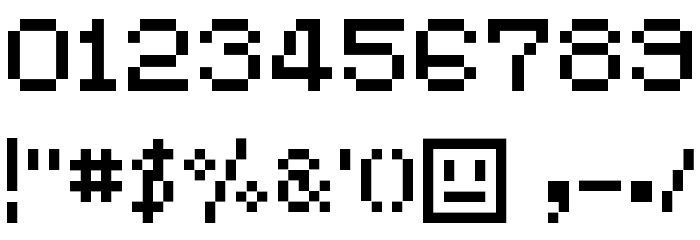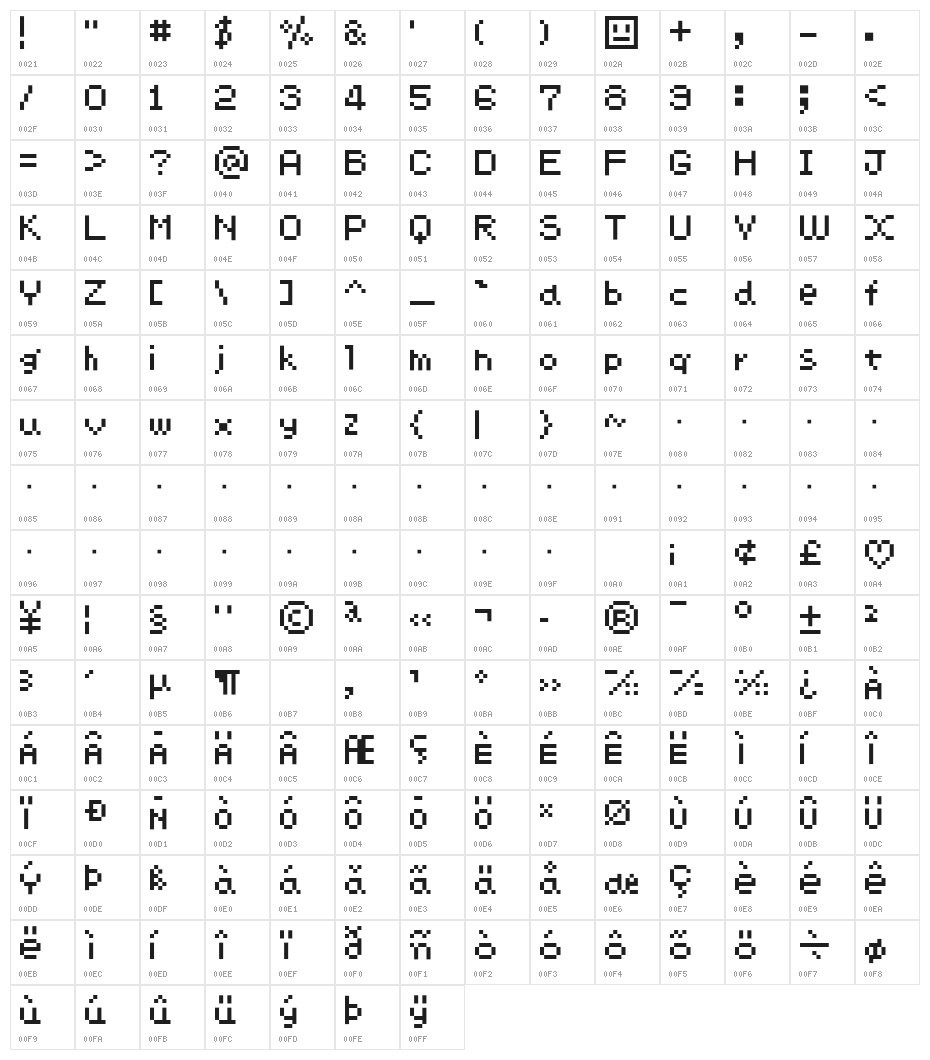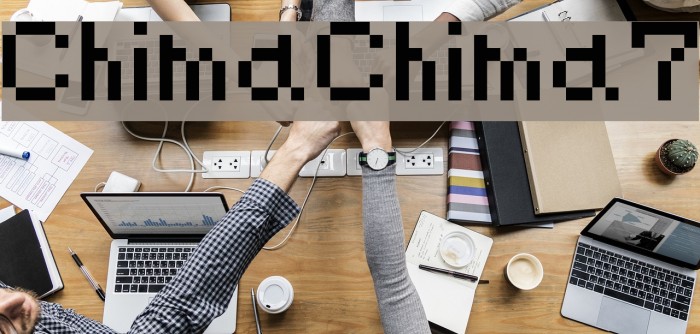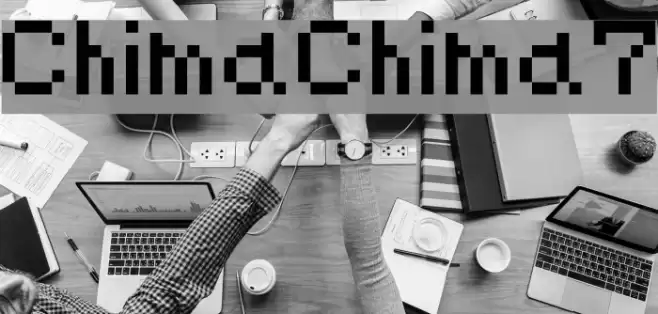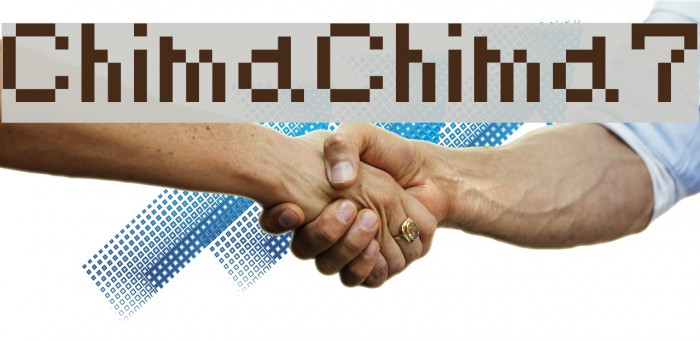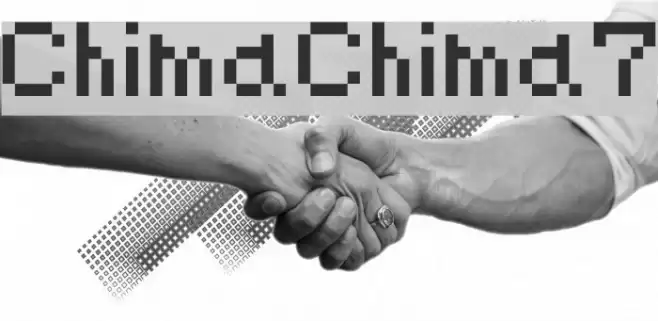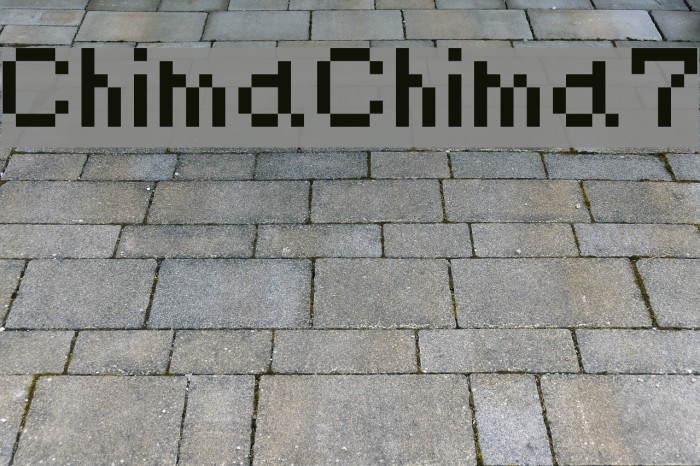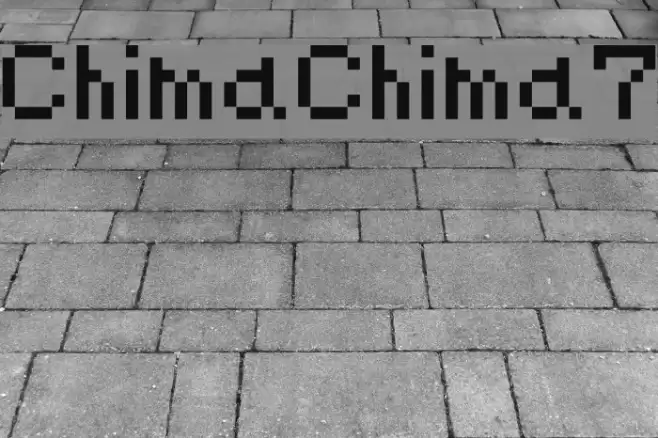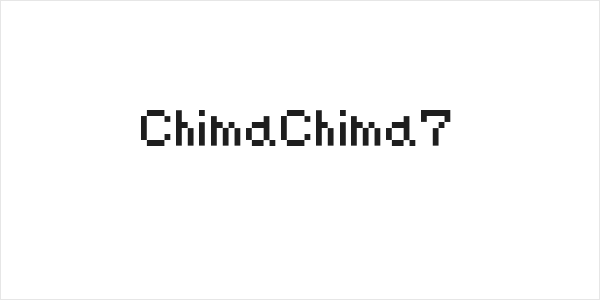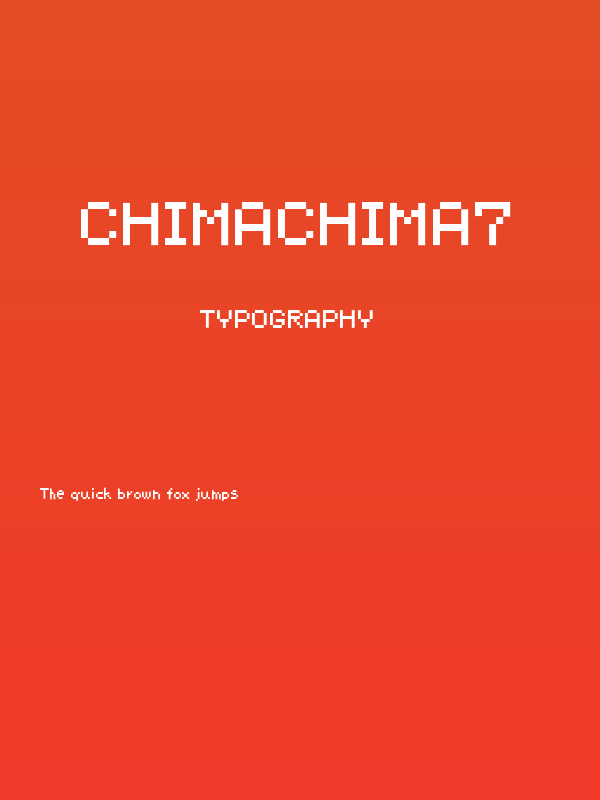
ChimaChima7 Font
ChimaChima7 Description
This font features a pixelated, blocky style reminiscent of early digital and video game typography. Each character is constructed with a grid-like precision, giving it a retro, nostalgic feel. The uniformity in the height and width of the characters contributes to its monospaced appearance, making it ideal for digital displays and retro-themed designs. The uppercase and lowercase letters maintain a consistent style, while the numbers and special characters are easily distinguishable, enhancing readability. This font's unique aesthetic makes it suitable for projects that aim to evoke a sense of nostalgia or digital minimalism.
| Overall Style | Retro |
| Use Case | Logos, Digital displays, Video games |
| Proposed Projects | Ideal for video game design, digital art projects, retro-themed posters, and tech-related branding. |